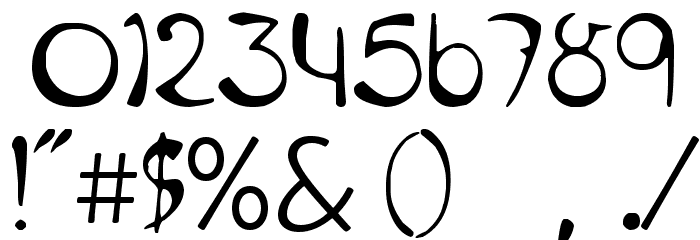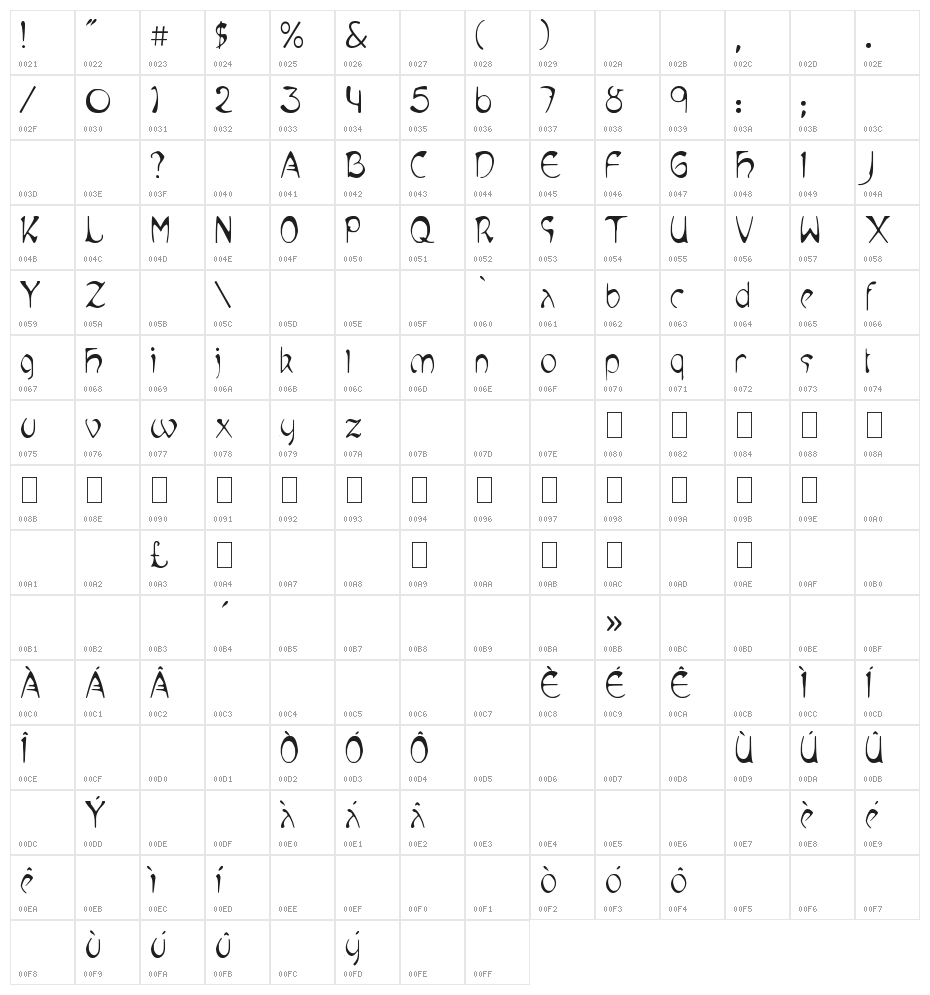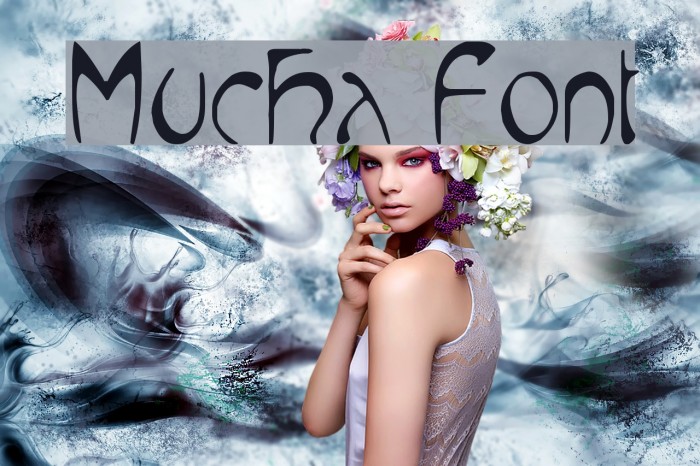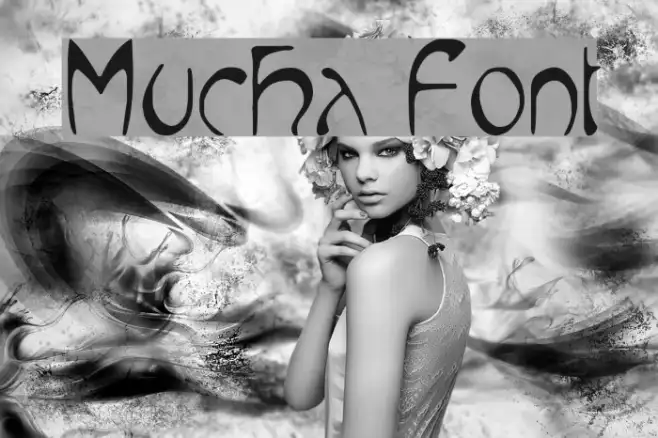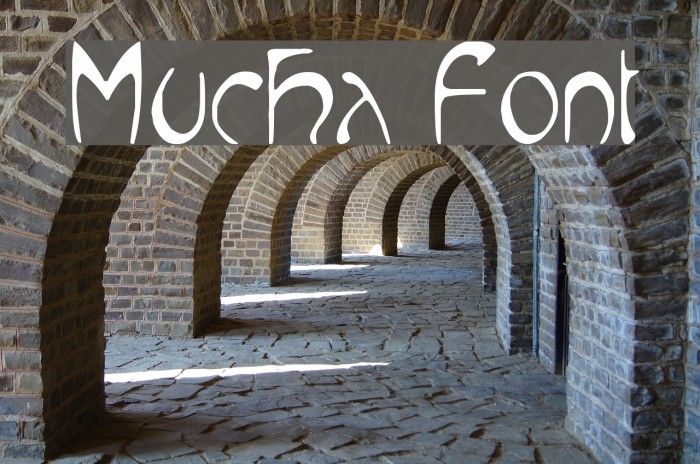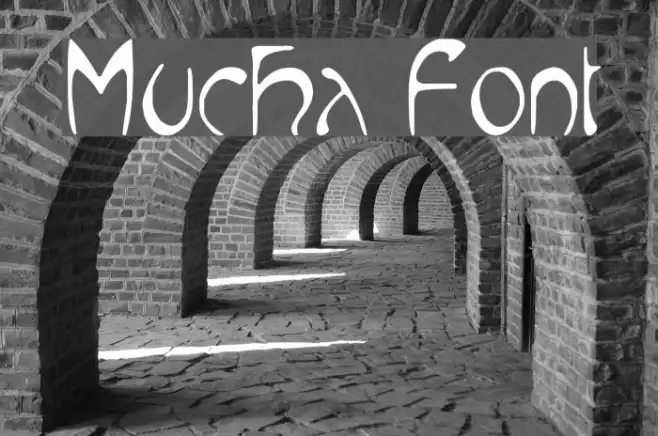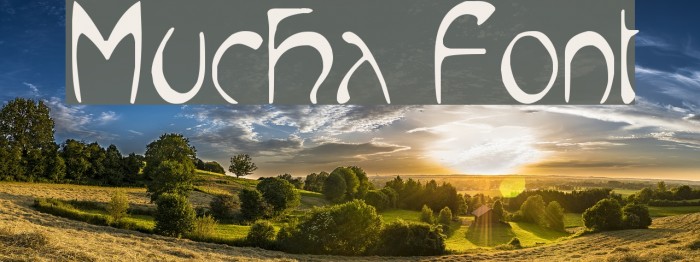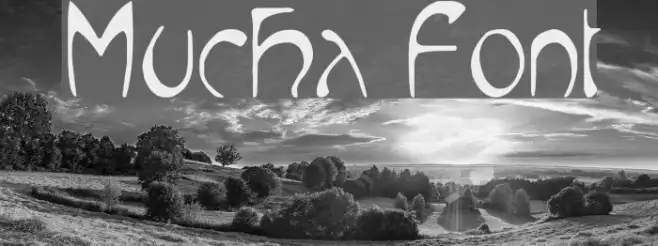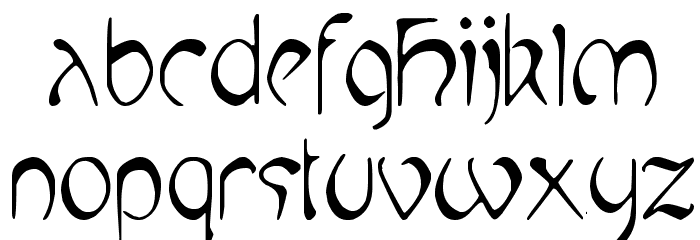
Mucha Font
Mucha Description
This font features a unique and artistic style, characterized by its flowing, organic shapes and intricate details. The uppercase letters have a distinct, almost calligraphic flair, with varying stroke widths that add a dynamic and lively feel. The lowercase letters maintain this artistic quality, with some characters featuring elongated or curved strokes that enhance the font's decorative nature. The numerals are equally stylized, with a playful yet elegant appearance. Special characters are designed to complement the overall aesthetic, making this font suitable for creative and expressive projects.
| Proposed Projects | Ideal for art projects, posters, invitations, and branding that require a creative and expressive touch. |